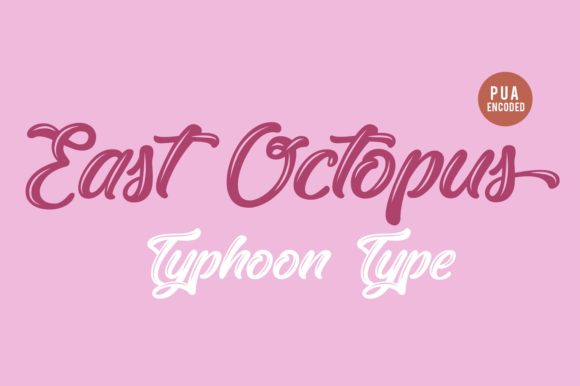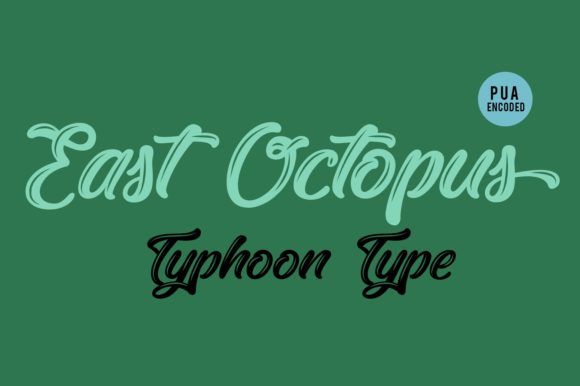
East Octopus Font
About East Octopus Font
East Octopus is a beautiful script font. It is ideal for logos, product packaging, social media posts, greeting cards and much more!